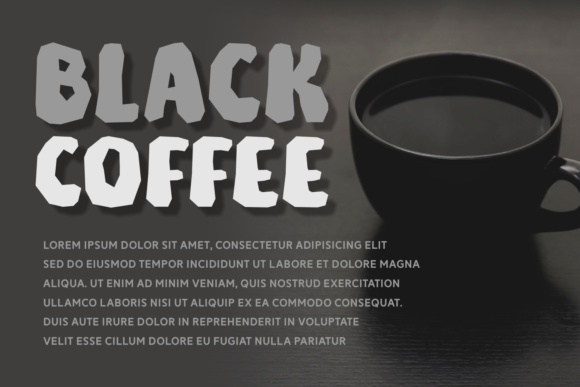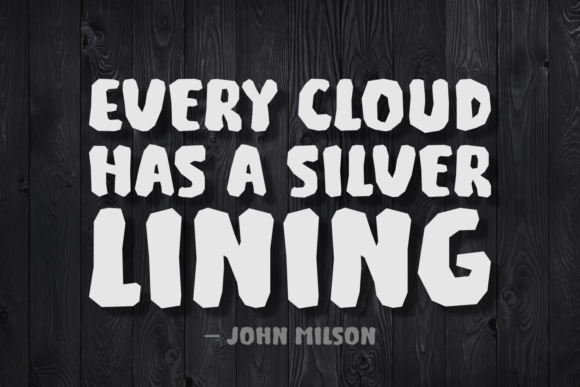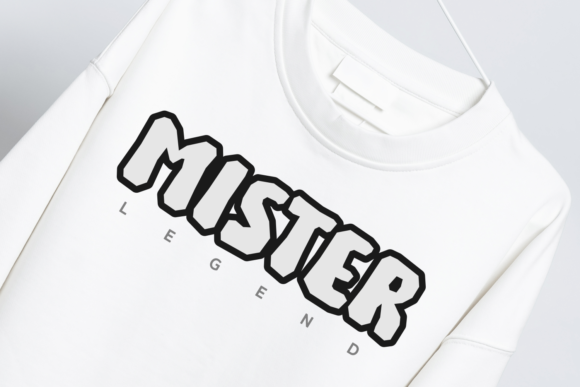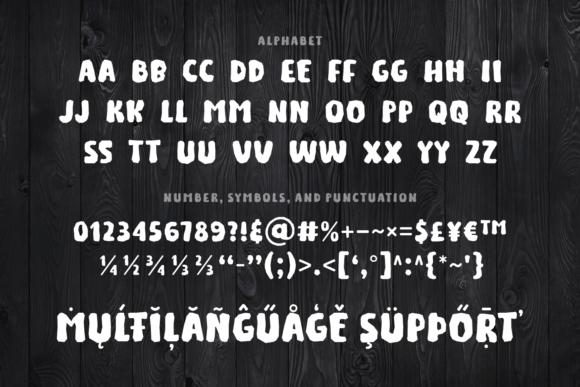
Introducing Hello Broken Font: The Ultimate Chubby Display Font for Creative Projects
Are you tired of using the same old fonts for your designs? Look no further! Hello Broken is a modern, chunky display font that’s perfect for adding a touch of personality to your creative projects. This versatile font is designed to make a statement, and its chubby, bold letters are sure to grab attention.
What Makes Hello Broken Font So Special?
Hello Broken is a one-of-a-kind font that’s specifically designed to add a playful, modern twist to your designs. Its chunky letters are perfect for creating eye-catching headlines, titles, and quotes that will make your projects stand out. The font’s bold, rounded edges give it a friendly, approachable feel that’s perfect for a wide range of applications.
Endless Design Possibilities with Hello Broken Font
One of the best things about Hello Broken font is its incredible versatility. This font can be used for a wide range of creative projects, including:
- T-shirts and apparel: Add a fun, playful touch to your t-shirt designs with Hello Broken font.
- Quotes and posters: Create eye-catching posters and quotes that will grab attention and inspire your audience.
- Covers and packaging: Use Hello Broken font to add a pop of personality to your book covers, product packaging, and more.
- 3D prints: This font is perfect for adding a modern, edgy touch to your 3D print designs.
- Food and drink menus: Add a fun, playful touch to your restaurant or cafe menu with Hello Broken font.
- Tattoo designs: This font is perfect for creating bold, eye-catching tattoo designs.
Why Designers and Crafters Love Hello Broken Font
Hello Broken font has quickly become a favorite among designers and crafters, and it’s easy to see why. This font offers a unique combination of style, versatility, and ease of use that’s hard to find elsewhere. Here are just a few reasons why designers and crafters love Hello Broken font:
- Easy to read: Despite its chunky, bold design, Hello Broken font is surprisingly easy to read, even at small sizes.
- Highly versatile: This font can be used for a wide range of creative projects, from t-shirts and posters to 3D prints and tattoo designs.
- Modern and trendy: Hello Broken font has a distinctly modern, trendy feel that’s perfect for designers and crafters who want to stay ahead of the curve.
Tips for Using Hello Broken Font in Your Designs
Now that you’ve learned more about Hello Broken font, here are a few tips for using it in your designs:
- Experiment with different colors: Hello Broken font looks great in a wide range of colors, so don’t be afraid to experiment and find the perfect hue for your design.
- Pair it with other fonts: This font pairs well with a wide range of other fonts, so feel free to get creative and experiment with different combinations.
- Use it to add emphasis: Hello Broken font is perfect for adding emphasis to your designs, so use it to draw attention to important information or to create eye-catching headlines.